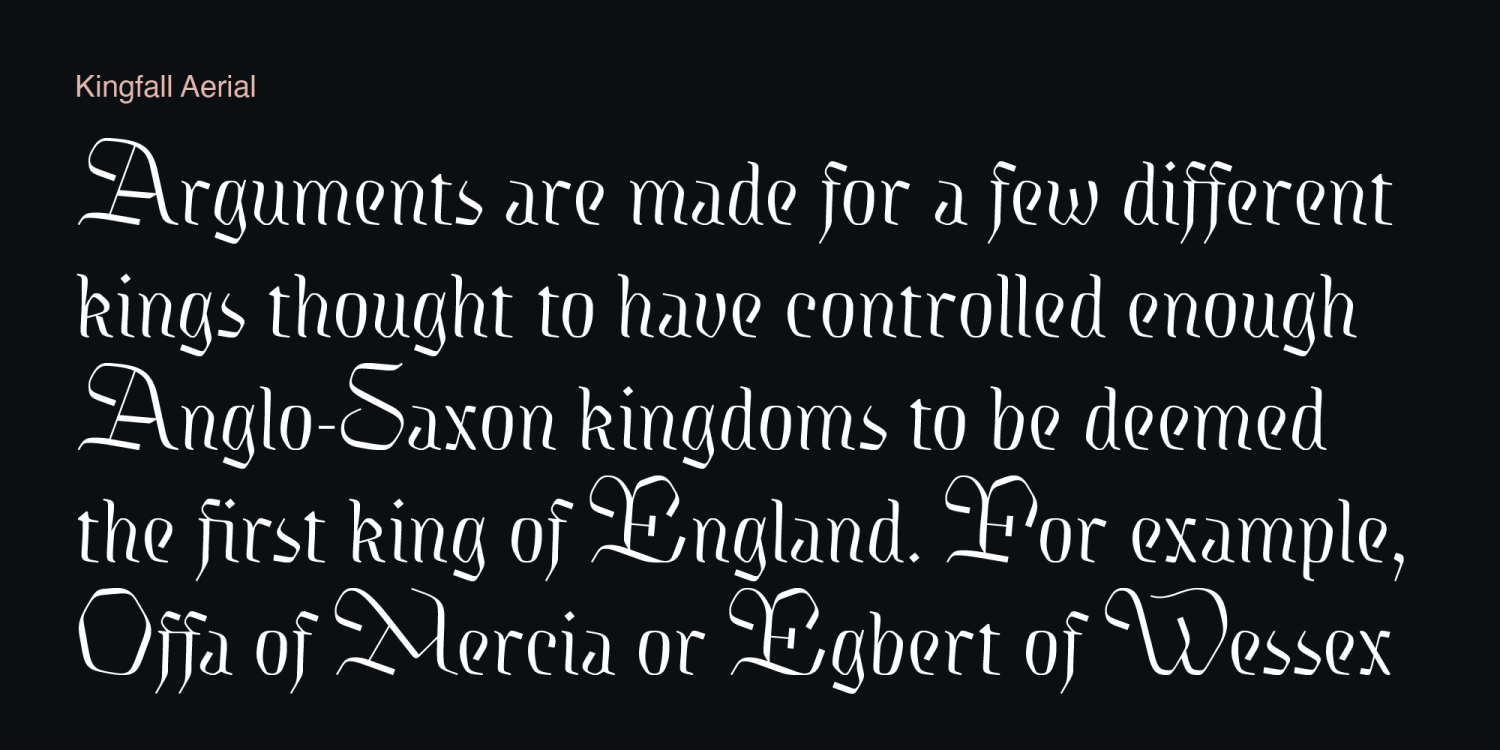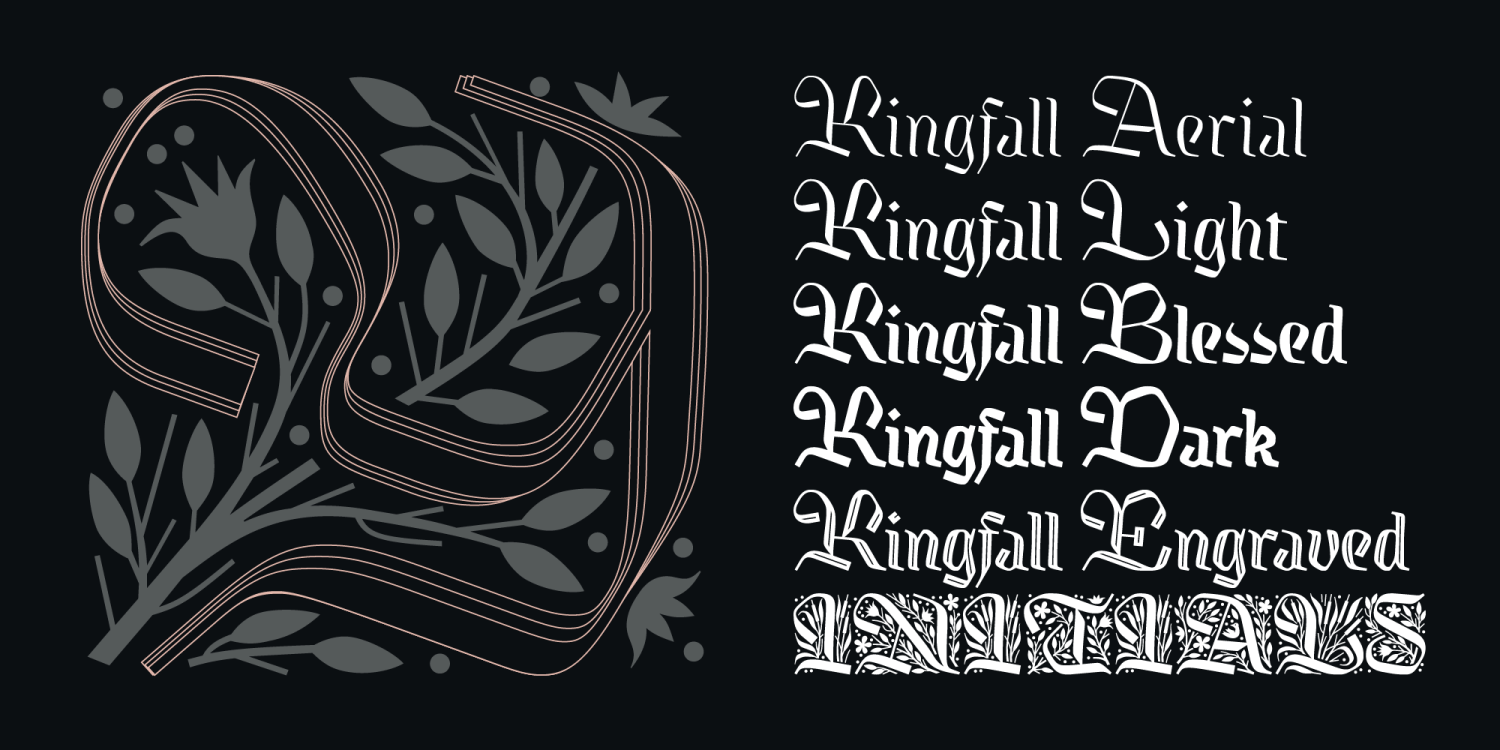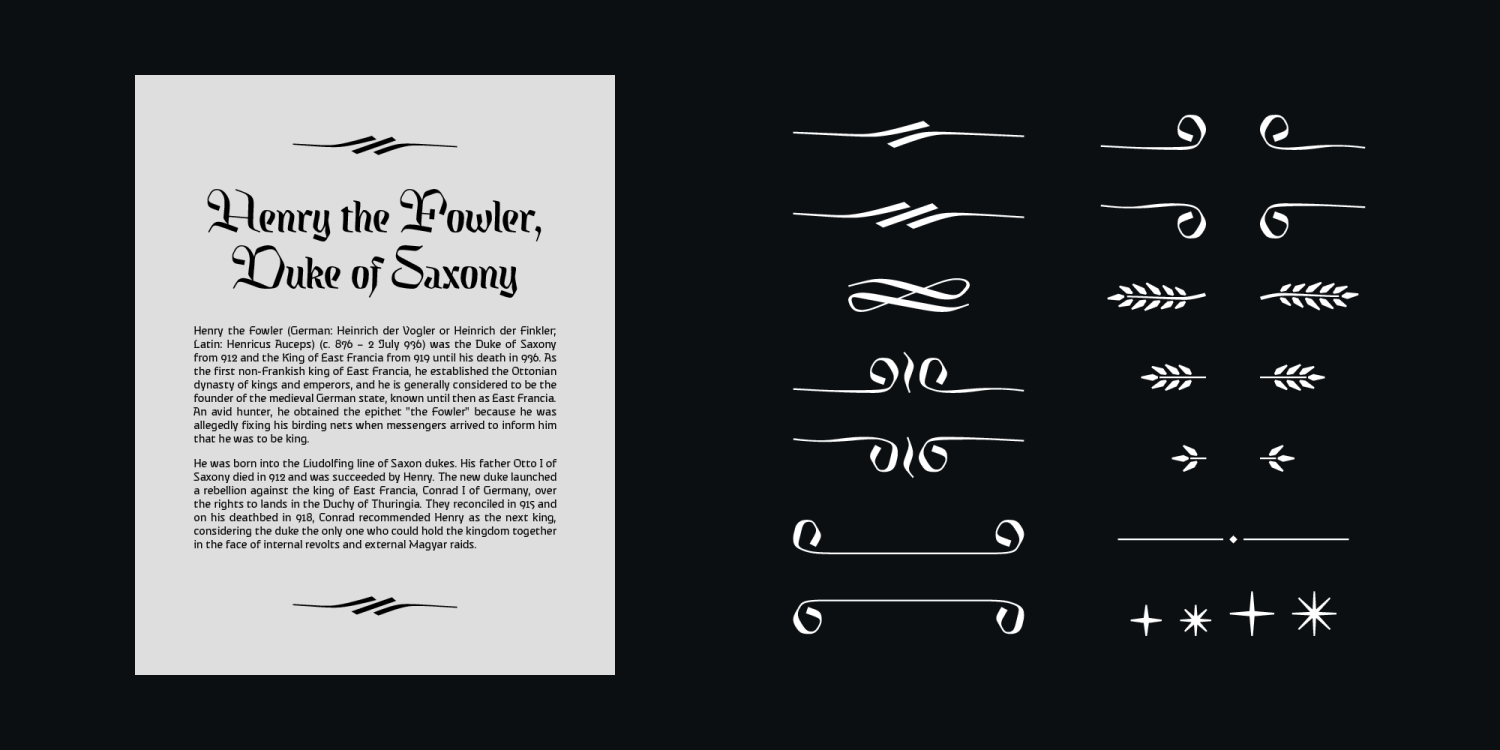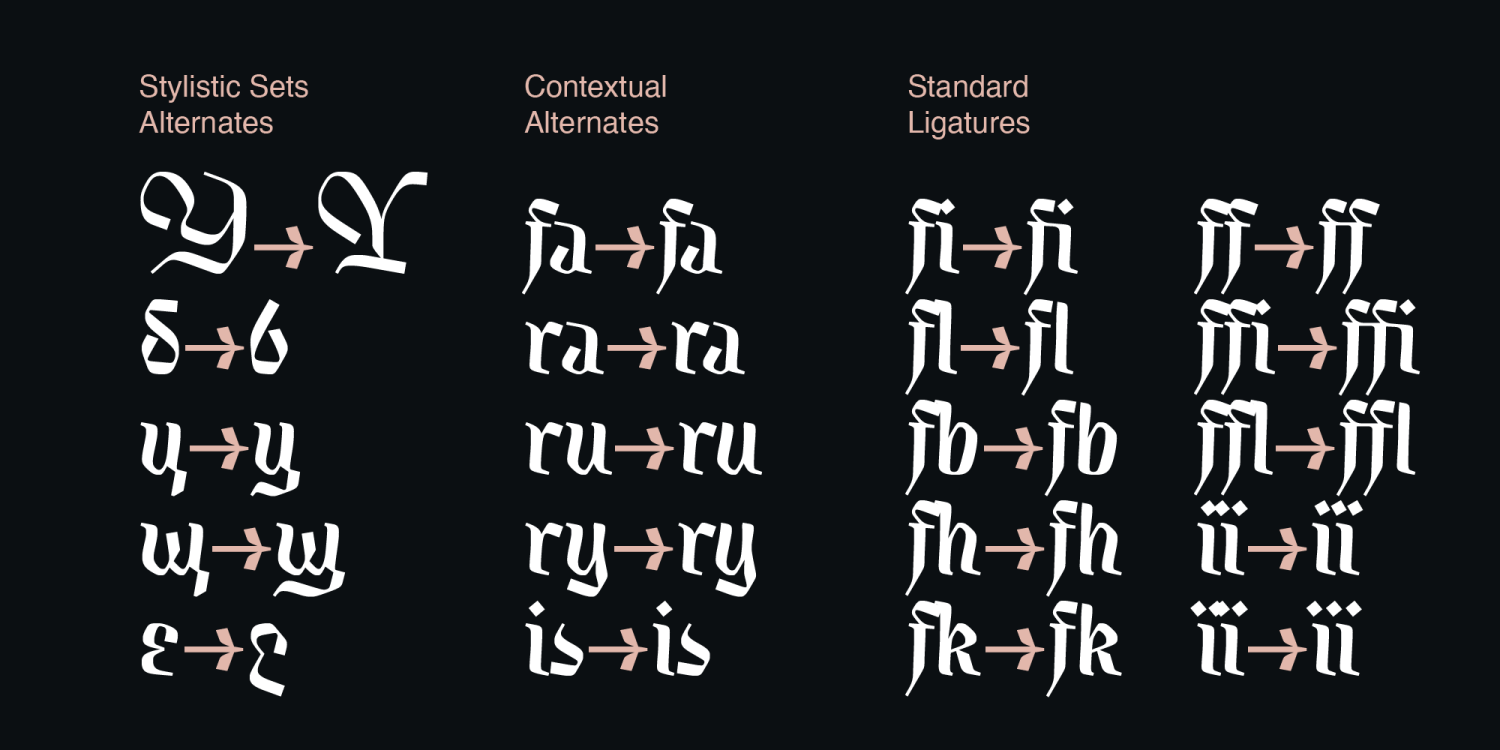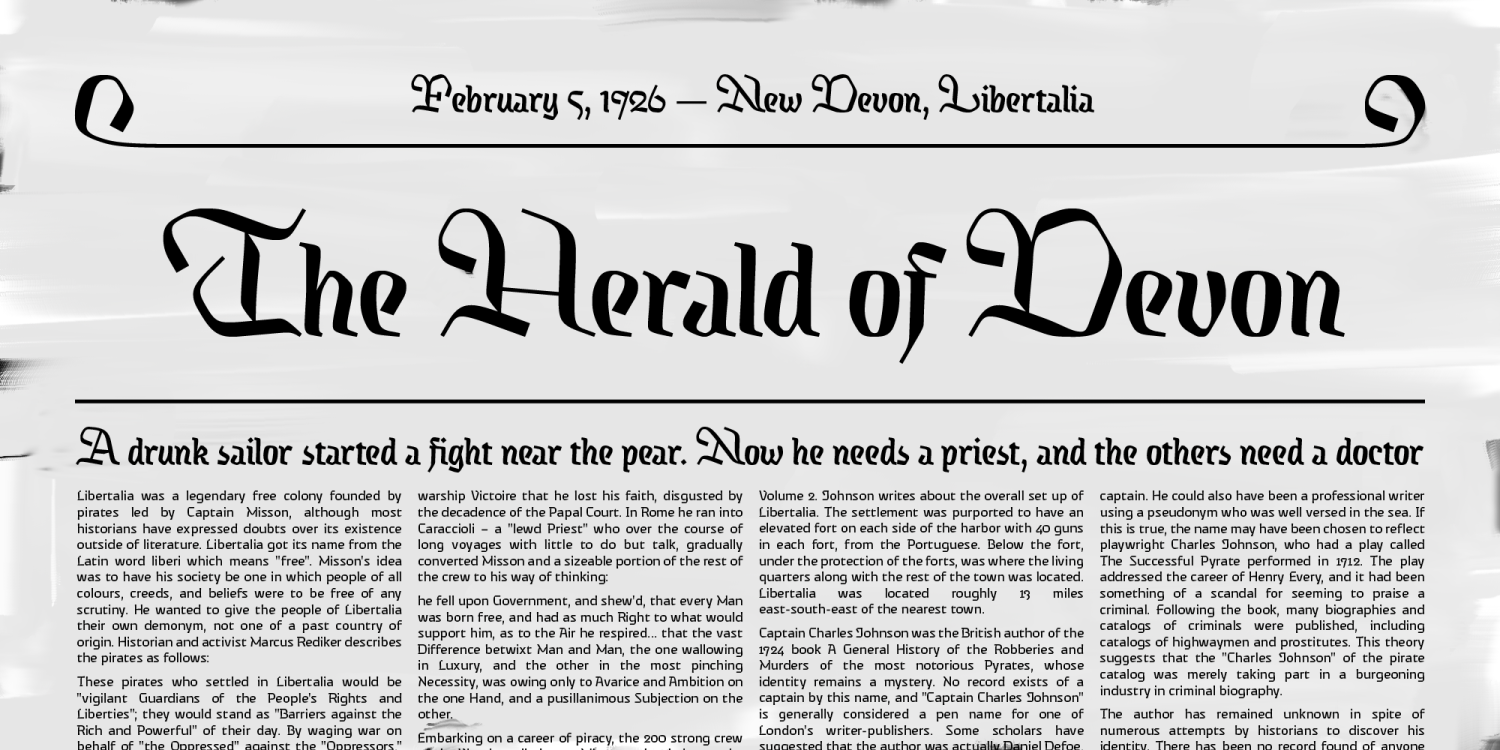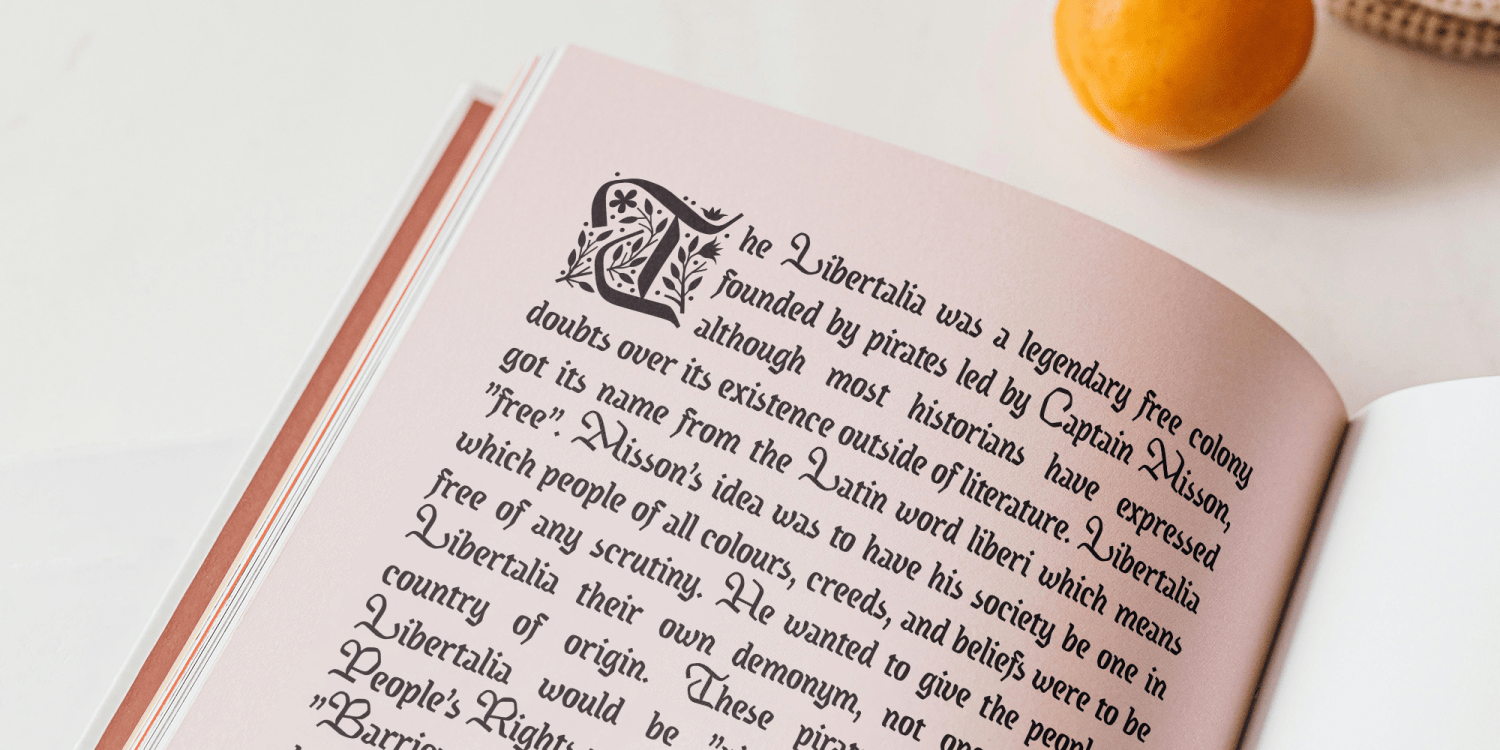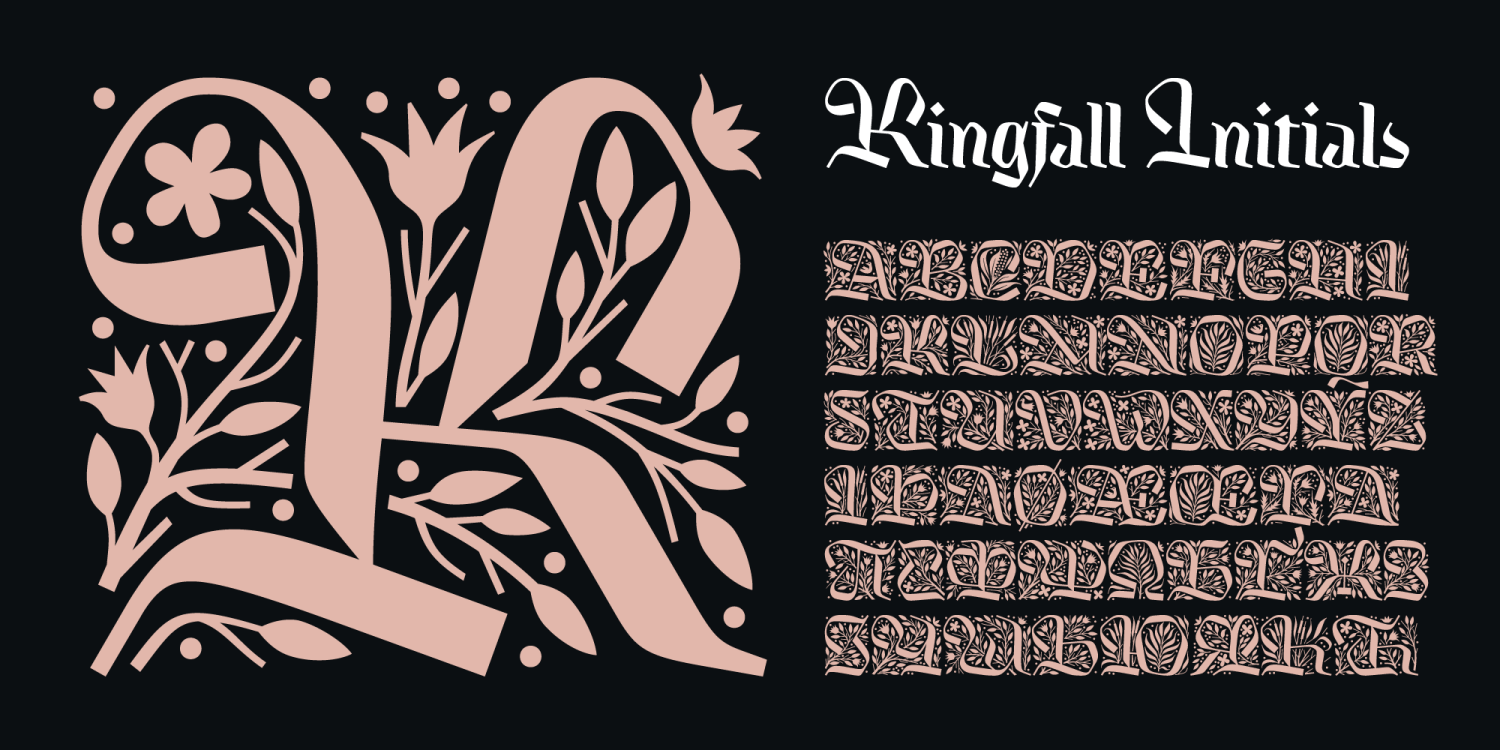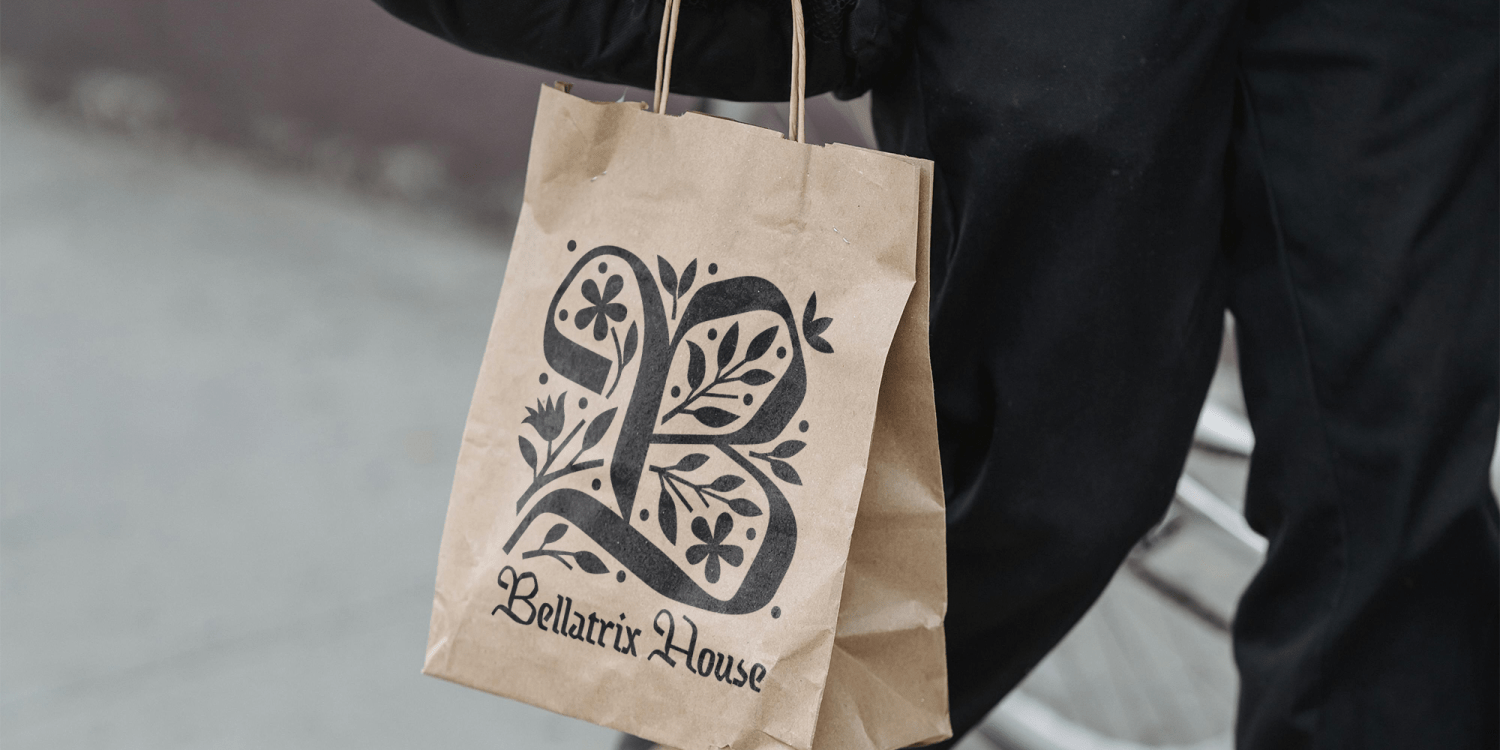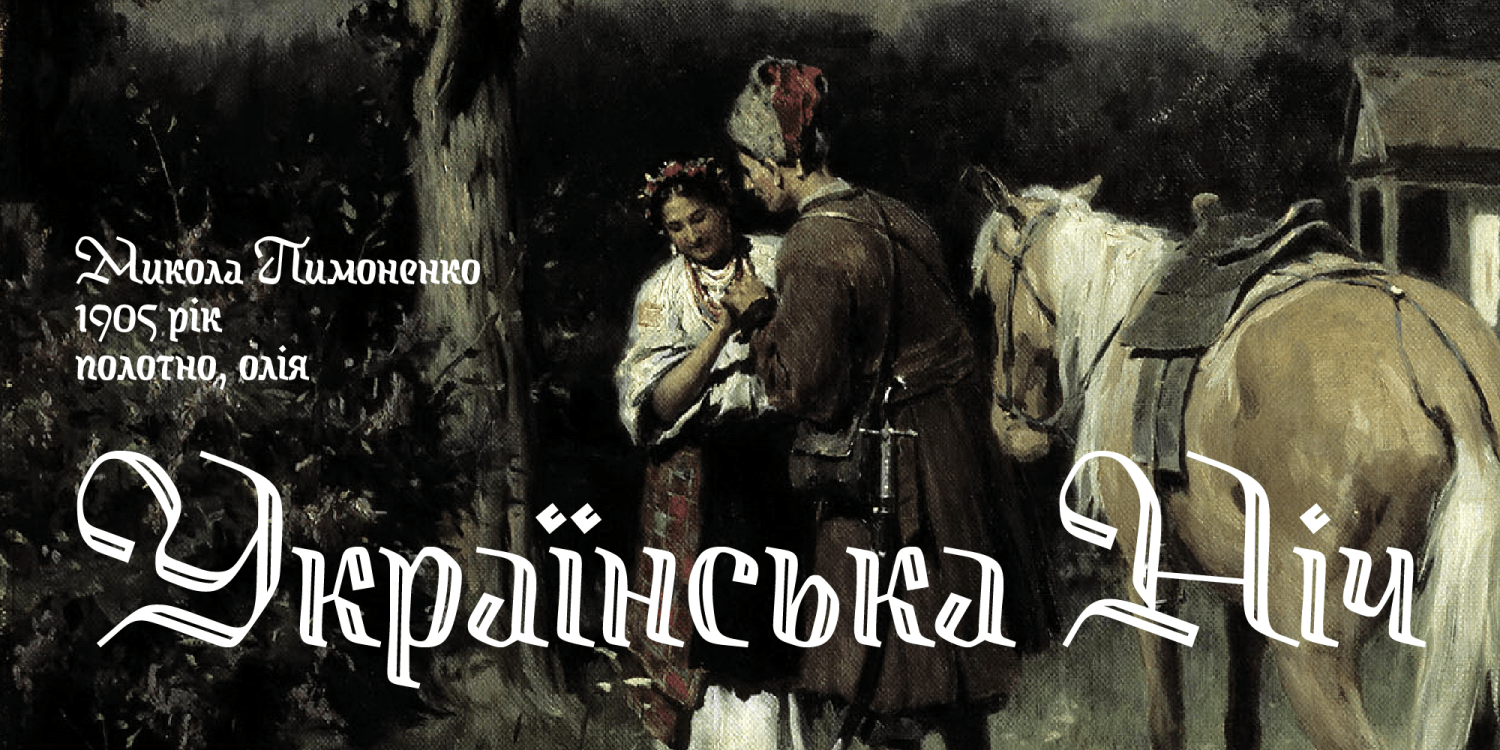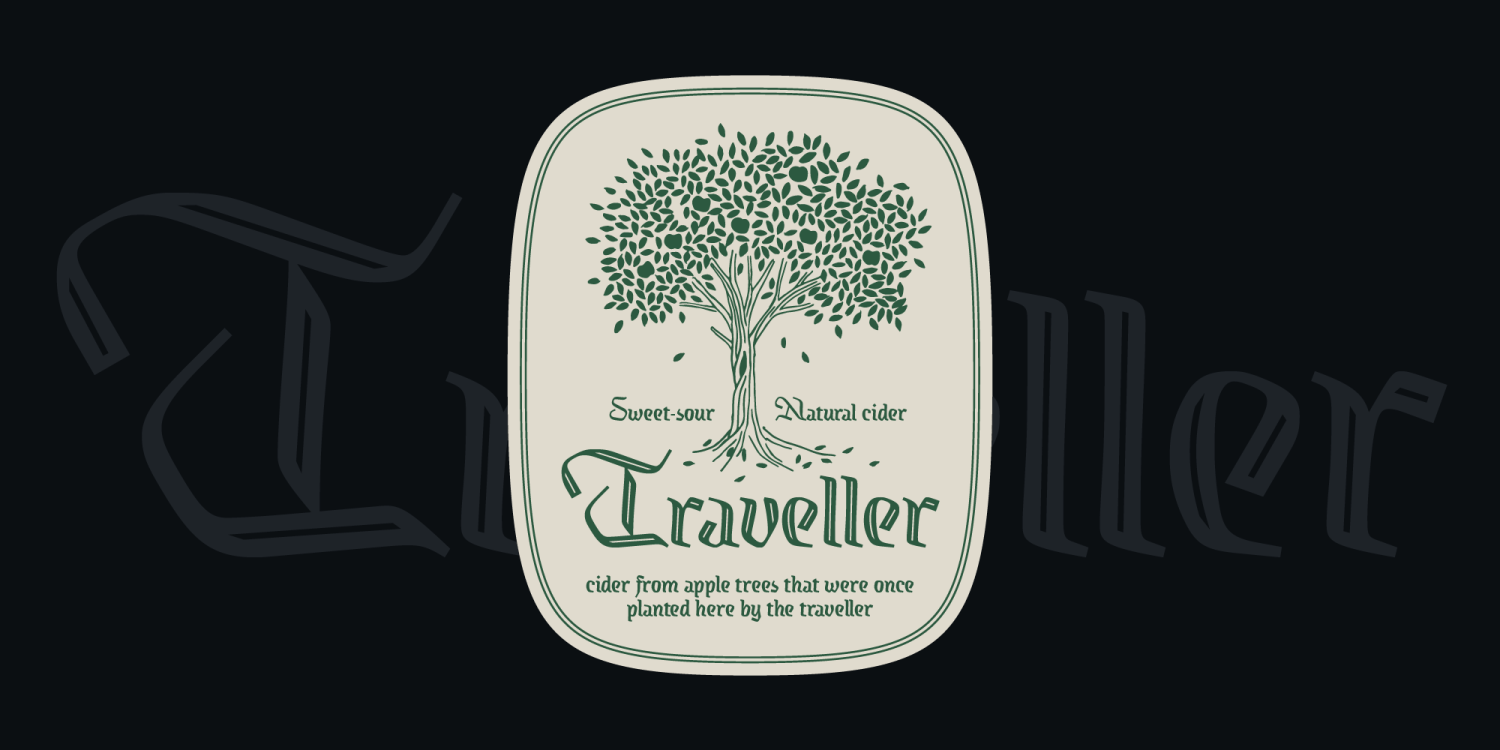
Kingfall
Font Family by Michael Rafailyk
Kingfall is a handwritten medieval typeface sketched with a flat calligraphic nib. The design is built on the contrast between small condensed lowercases and large decorative uppercases that can also function as initials. The shape of the letters has numerous rough bends and hard edges, as if the royal blacksmith took a strip of iron and shaped it with a hammer. At the same time, the direction of strokes avoids geometric rectilinearity, thereby adding a human touch to the letterform.
Kingfall Initials contains a decorated versions of the uppercase letter shapes only. This style is intended to decorate an initial letter of a paragraphs.
Stylistic Set 2 “Decorations”: The font contains 22 elements for designing book chapters. There are two ways to apply them: 1. Open the Glyphs panel in the graphics editor and select the decorative element manually. 2. Activate Stylistic Set 2 and type the keywords from :decoration1: to :decoration22: in the text.
Scripts supported: Latin, Greek, Cyrillic, Georgian, Arabic, Hebrew